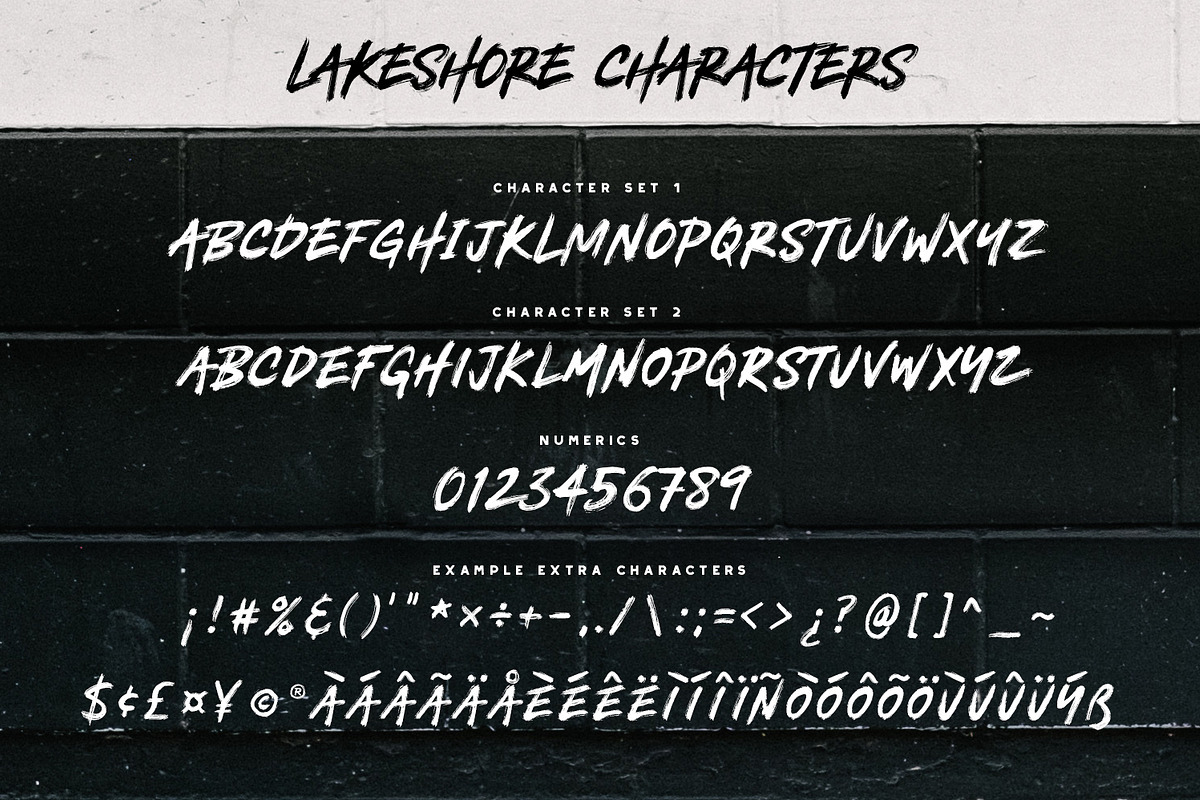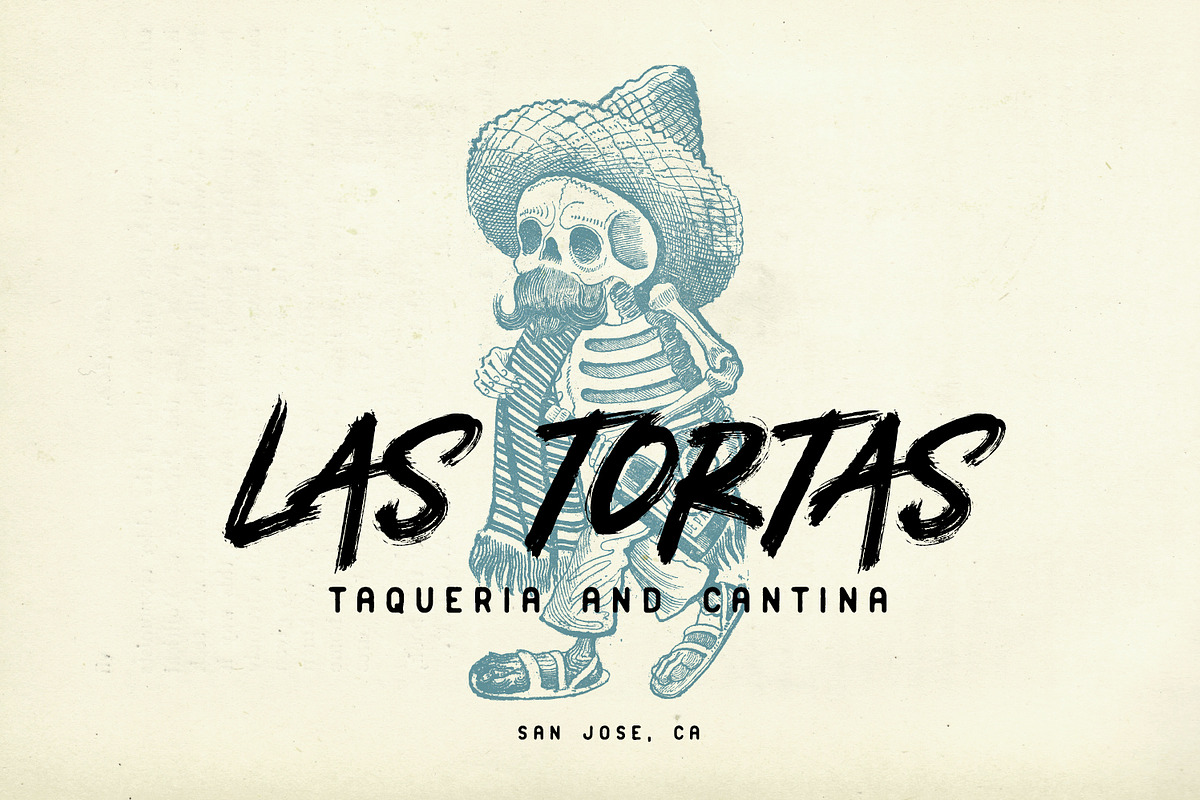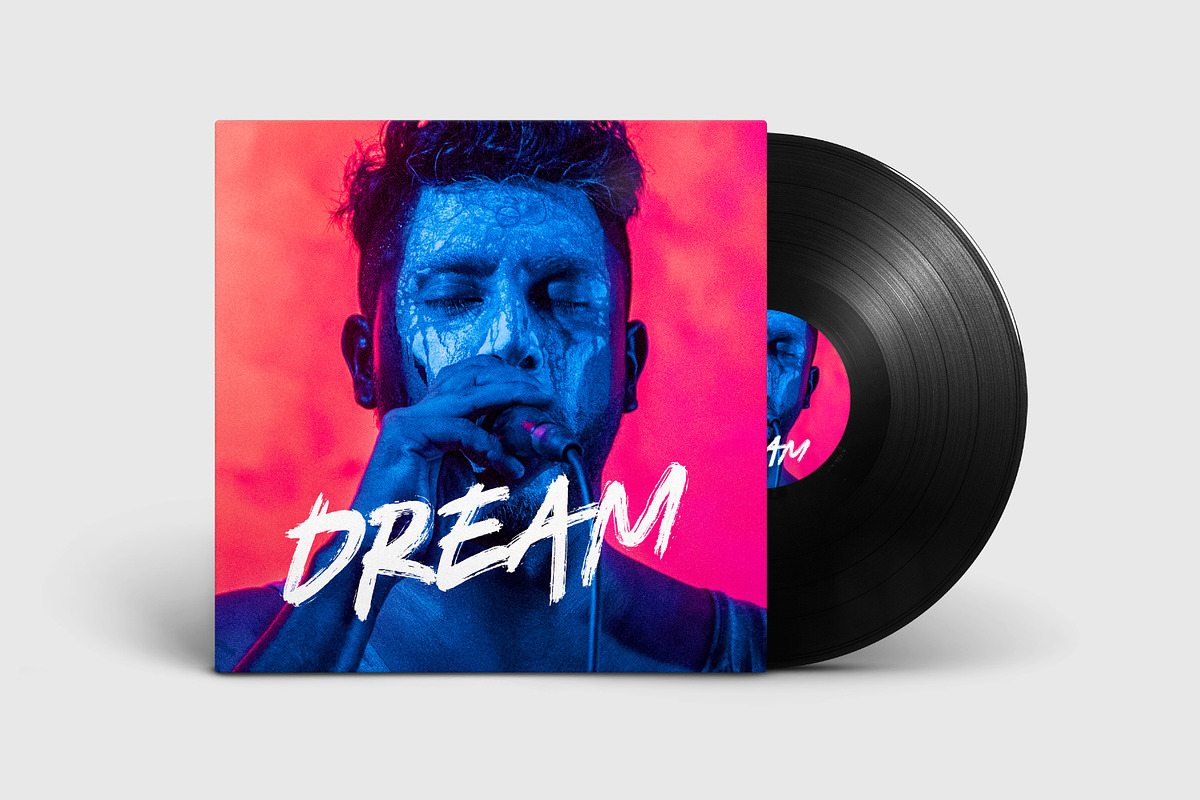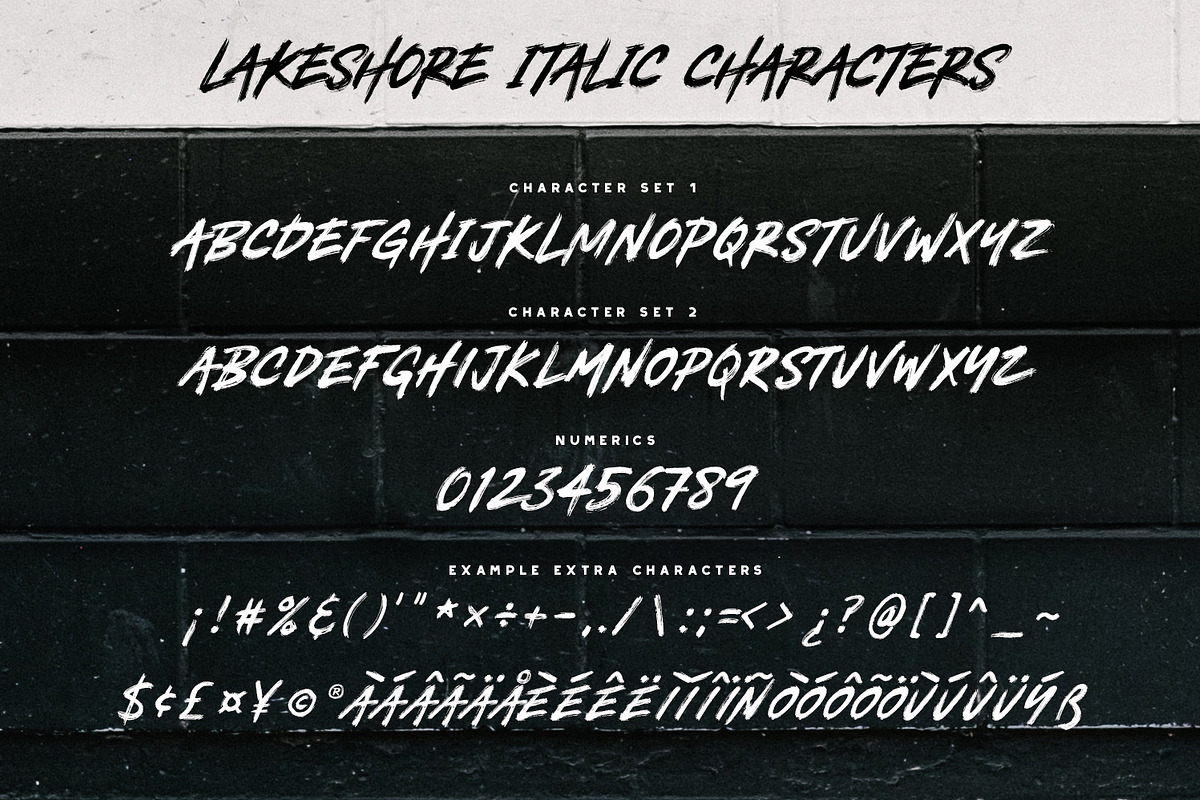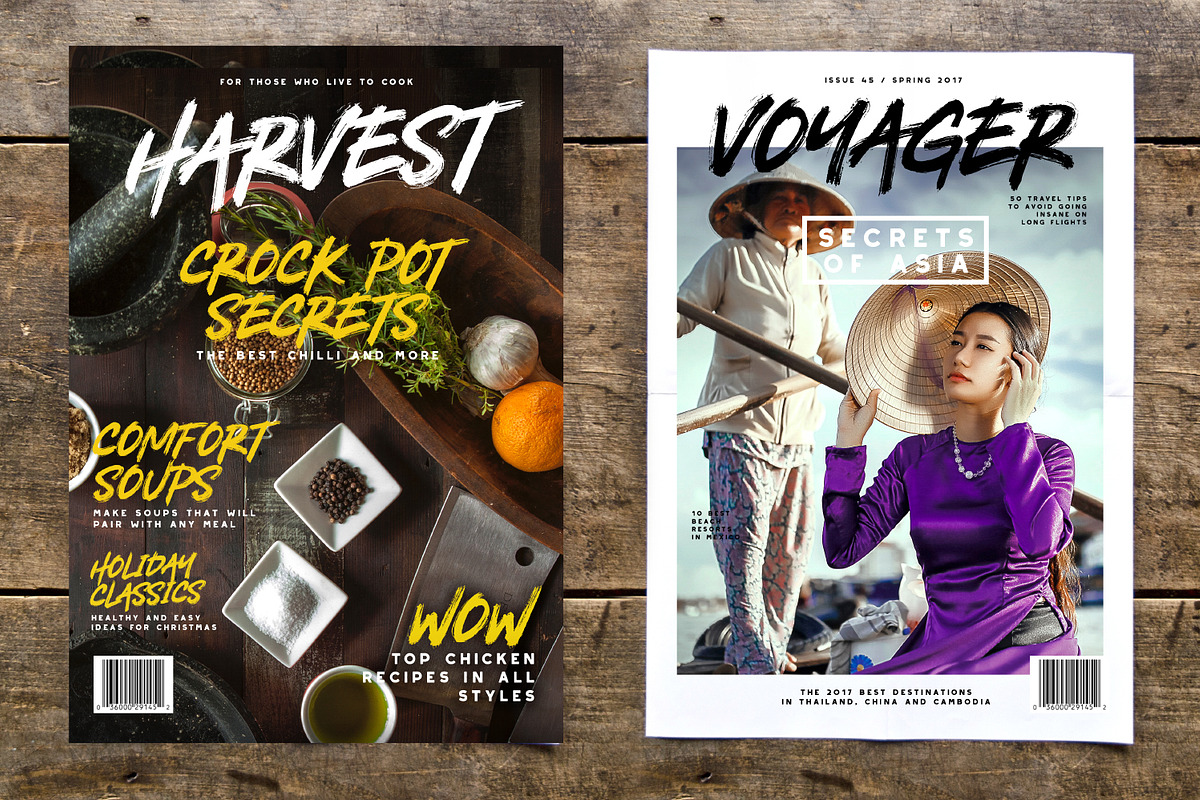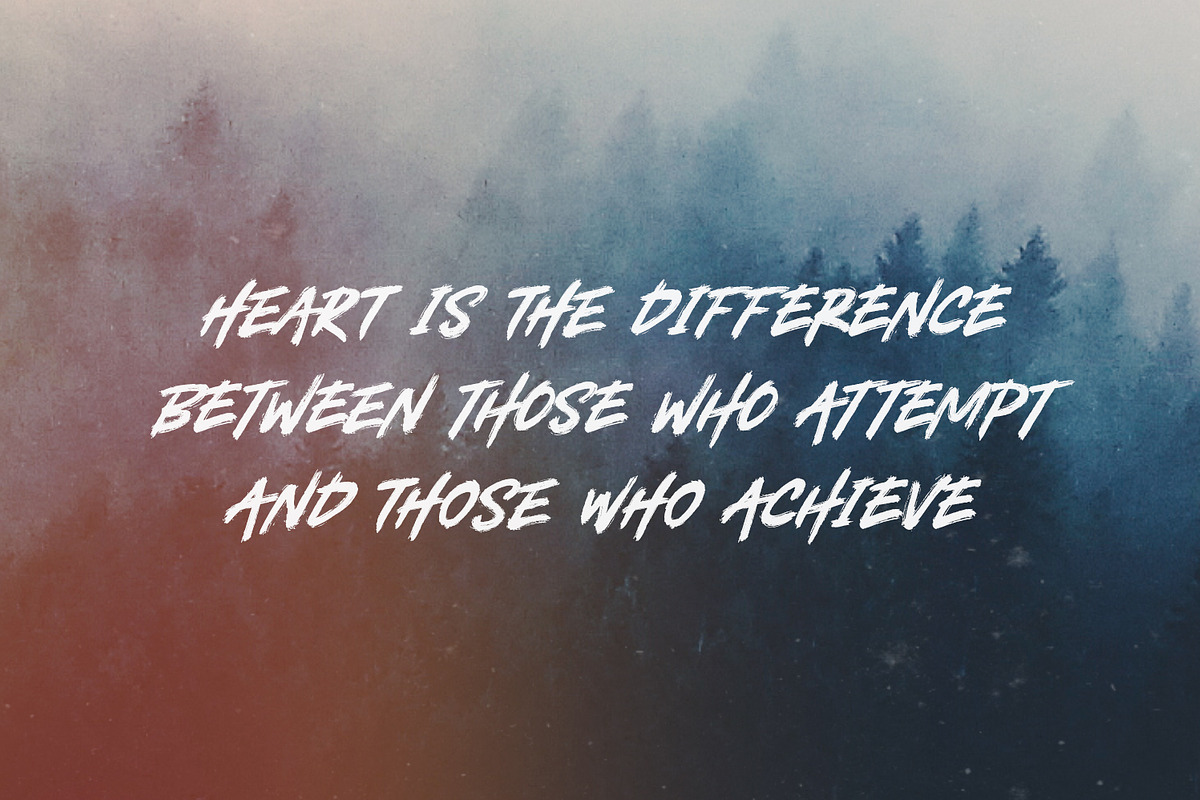
Lakeshore Brush Font
Lakeshore Brush Font by Greg Nicholls is a font selected for branding, posters, packaging, typography.
- Lakeshore Regular - The standard version of the font. Perfect for titles and logos.
- A ton of detail was preserved when the characters were digitized, so that large letters will look fantastic up close.
- Language Support - We've added in a great deal of extra characters to support many different languages.
- Alternate Ligatures - Even though this is an uppercase font, the lowercase characters will give alternate uppercase characters.
- In other words, 't' and 'T' will give different capital T characters, which gives you variance to work with.
Why Lakeshore Brush Font is worth a look
Lakeshore Brush Font by Greg Nicholls fits naturally into Branding, posters, packaging, typography.